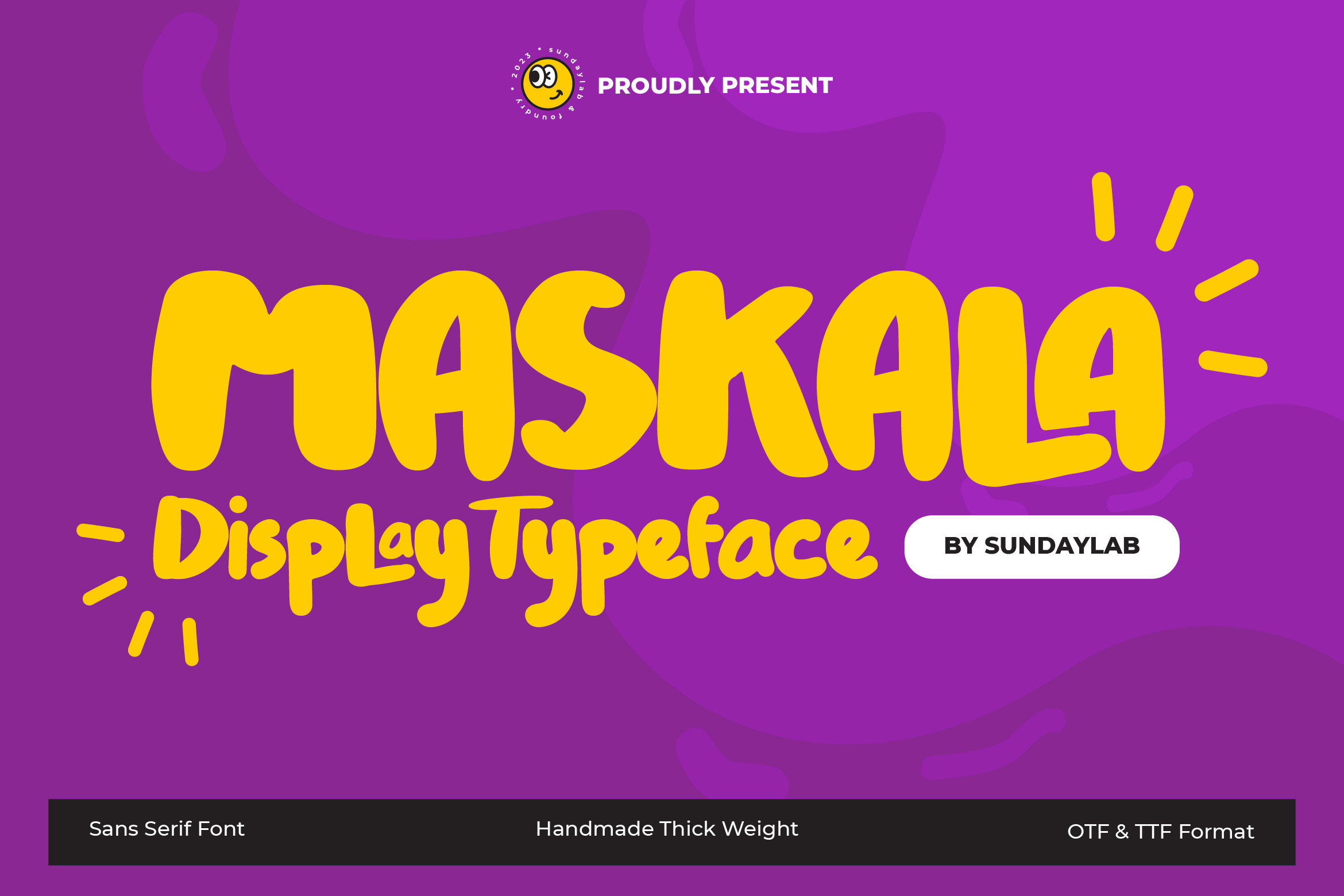
Maskala Typeface
Introducing
Maskala Typeface
Maskala Typeface is a monospace font that can help display messages in the designs you create. With its unique character, it is suitable for you to use on stickers, flyers, website, social media, vinyl, CDs, and many other media.